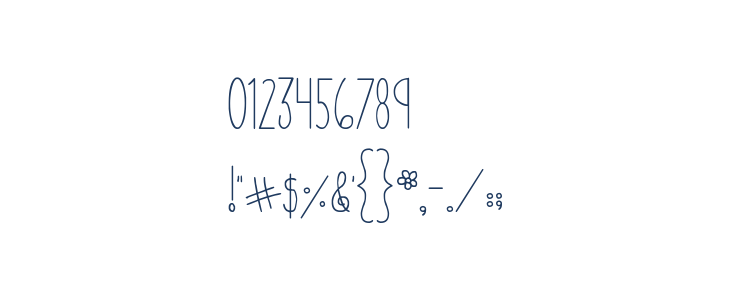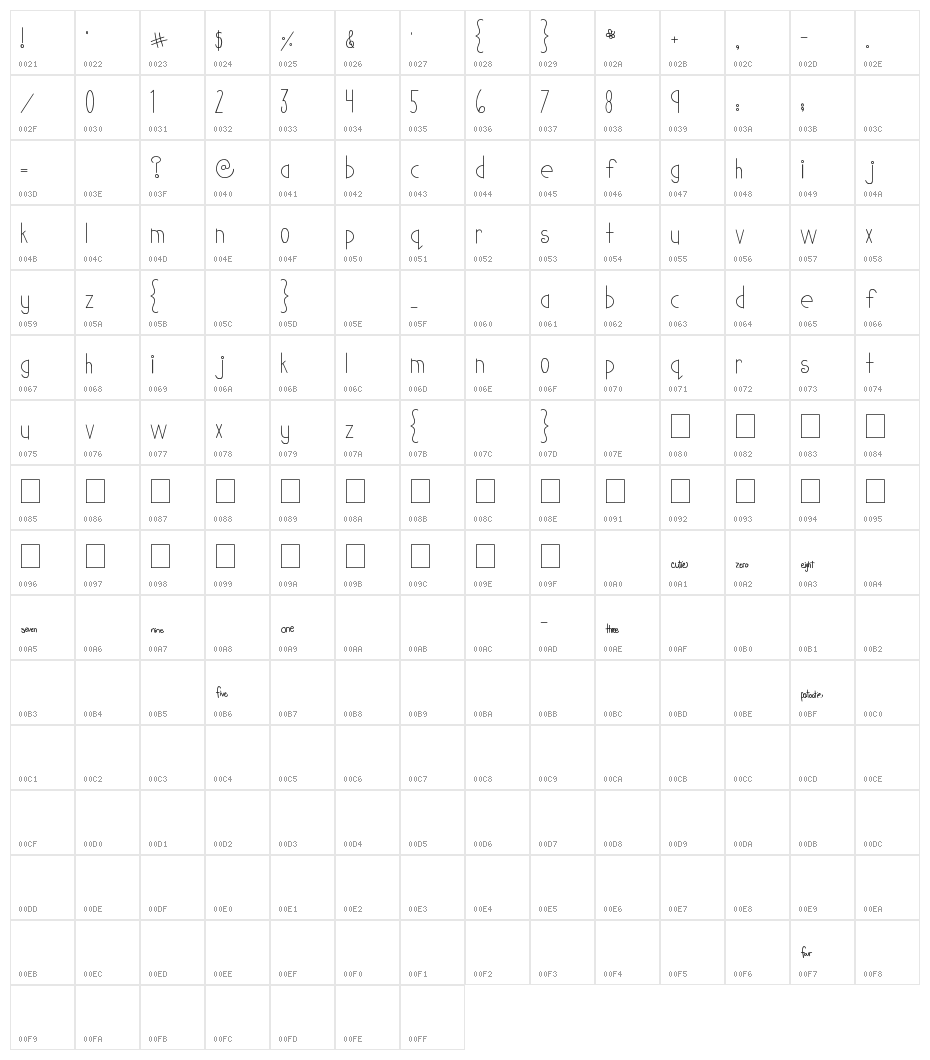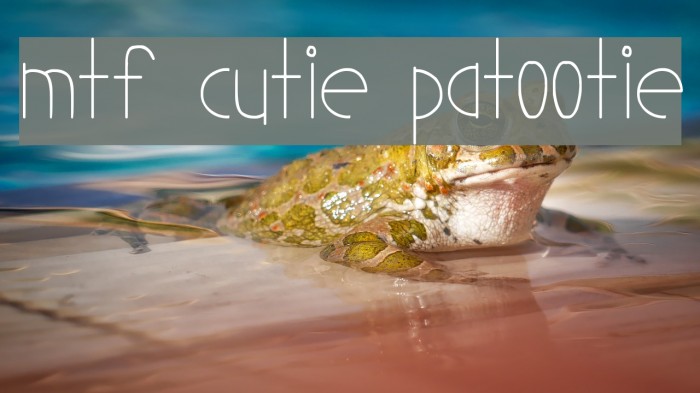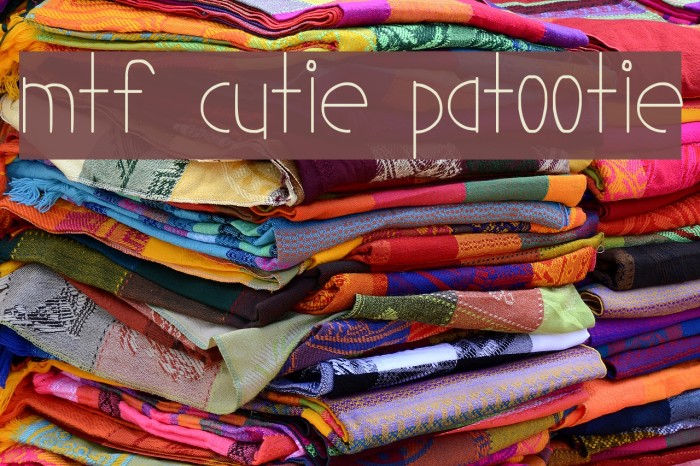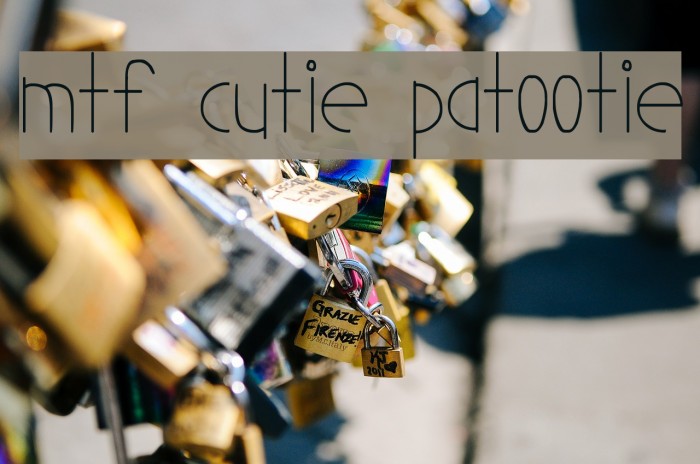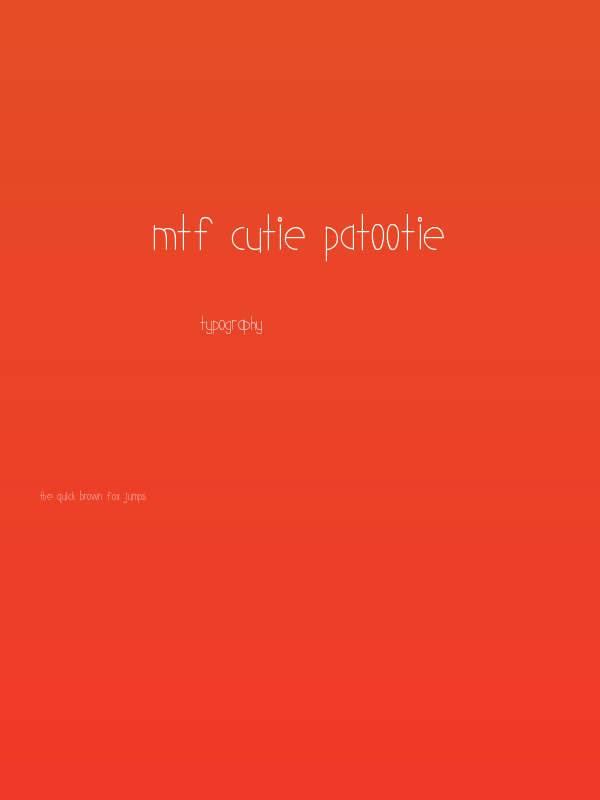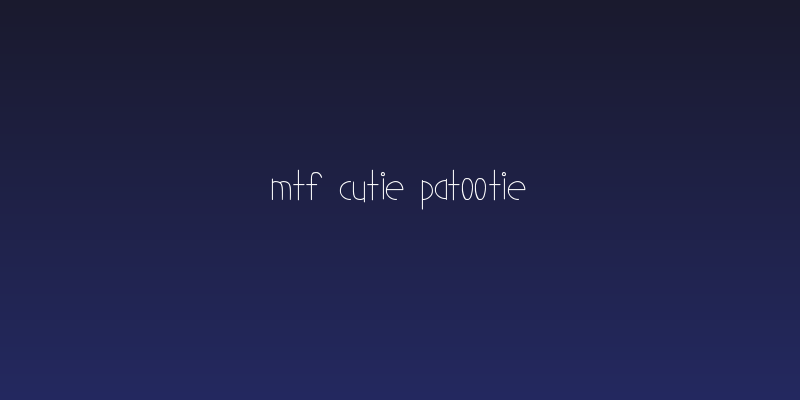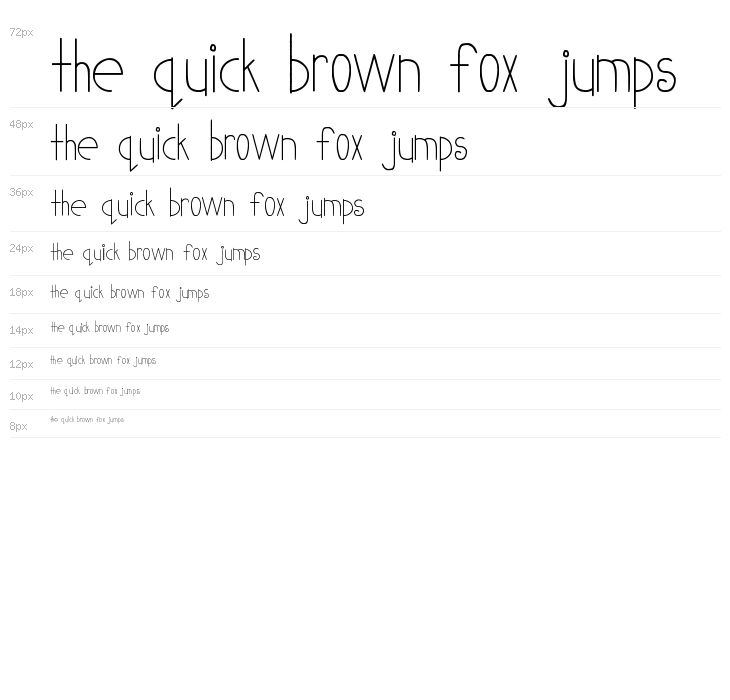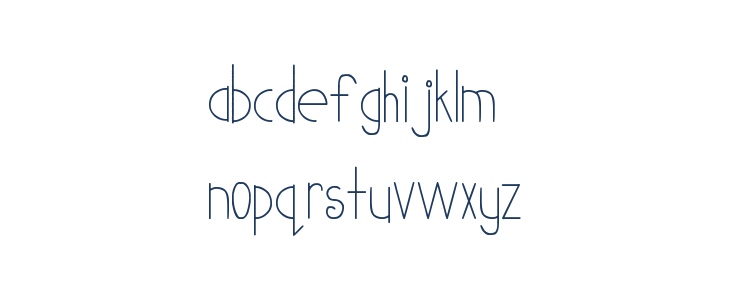
MTF Cutie Patootie Font
MTF Cutie Patootie Description
This playful and whimsical font features thin, elongated characters with a charming, hand-drawn appearance. The letters have a consistent stroke width, giving them a clean and modern look. The font includes both uppercase and lowercase letters, numerals, and a variety of special characters. Its unique style is characterized by rounded edges and a slightly irregular baseline, adding to its casual and friendly feel. The overall design is light and airy, making it suitable for projects that require a touch of personality and fun.
| Proposed Projects | Ideal for children's books, greeting cards, playful branding, and creative invitations. |